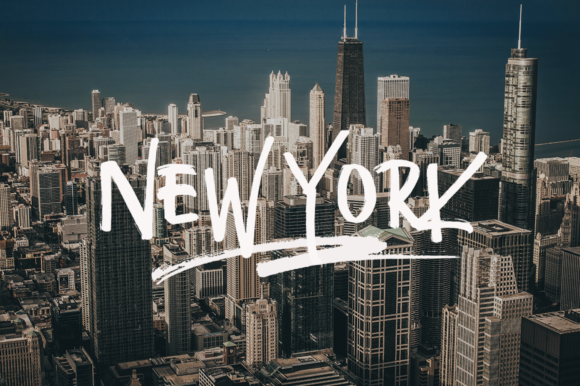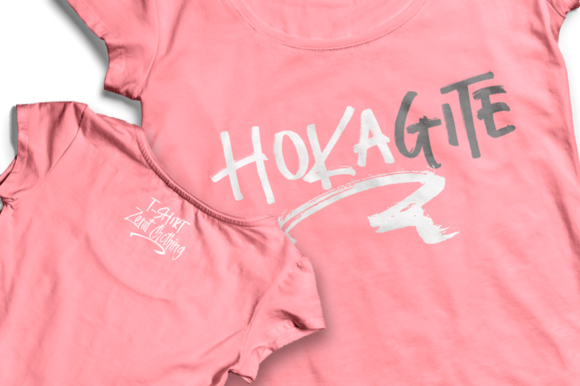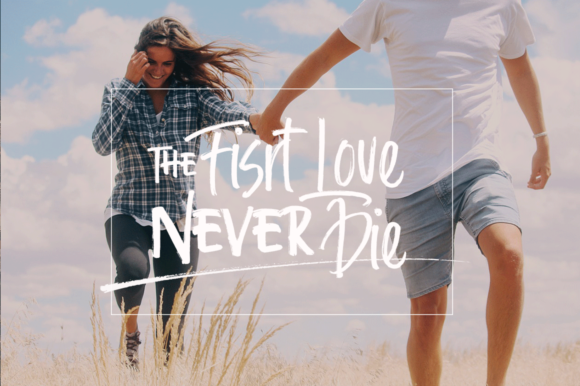
Hello Sweety Trio Font
About Hello Sweety Trio Font
The Hello Sweety is a beautiful font trio. It comes in three styles which can be combined together perfectly and give you the opportunity to create endless designs with just this one download.
This brush trio is the perfect choice for any branding project, logo, invitations, etc.